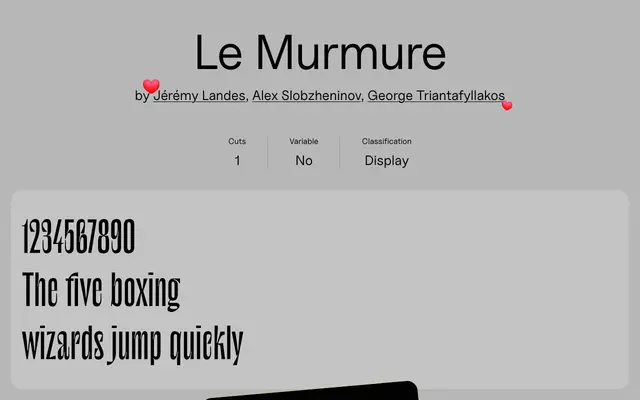
Le Murmure
A single-cut display typeface by Jérémy Landes, Alex Slobzheninov and George Triantafyllakos, released under the SIL Open Font License for free commercial use.
Le Murmure is a display typeface designed by Jérémy Landes, Alex Slobzheninov and George Triantafyllakos, available in a single non-variable cut. It is released under the SIL Open Font License 1.1, permitting commercial use, modification and redistribution with conditions. Suited to headline and large-scale typographic applications where a distinctive display voice is needed.
Classified as Display by the foundry; single-cut typeface intended for headline and large-scale use rather than continuous text.